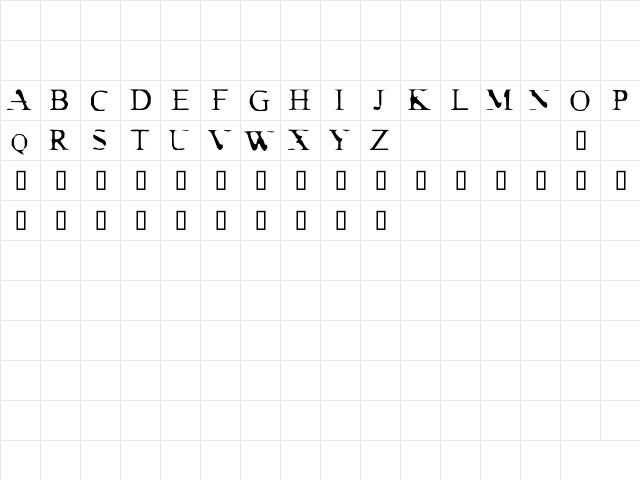
Cracked Dendrite Regular
Design Context for Cracked Dendrite Typeface
Cracked Dendrite is a composed and adaptable typeface that performs quietly and consistently across a wide range of design contexts.